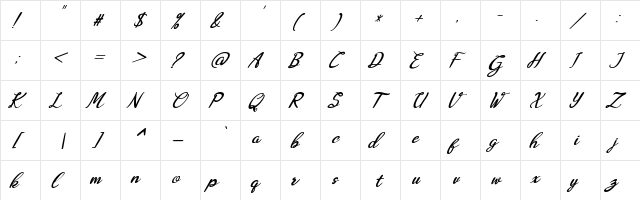
Augustavn Regular
| Designer | Ardian Arfi |
Design Context for Augustavn Typeface
Augustavn is a composed and adaptable typeface that performs quietly and consistently across a wide range of design contexts.